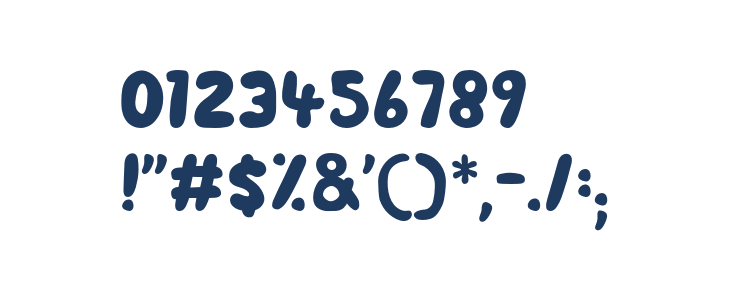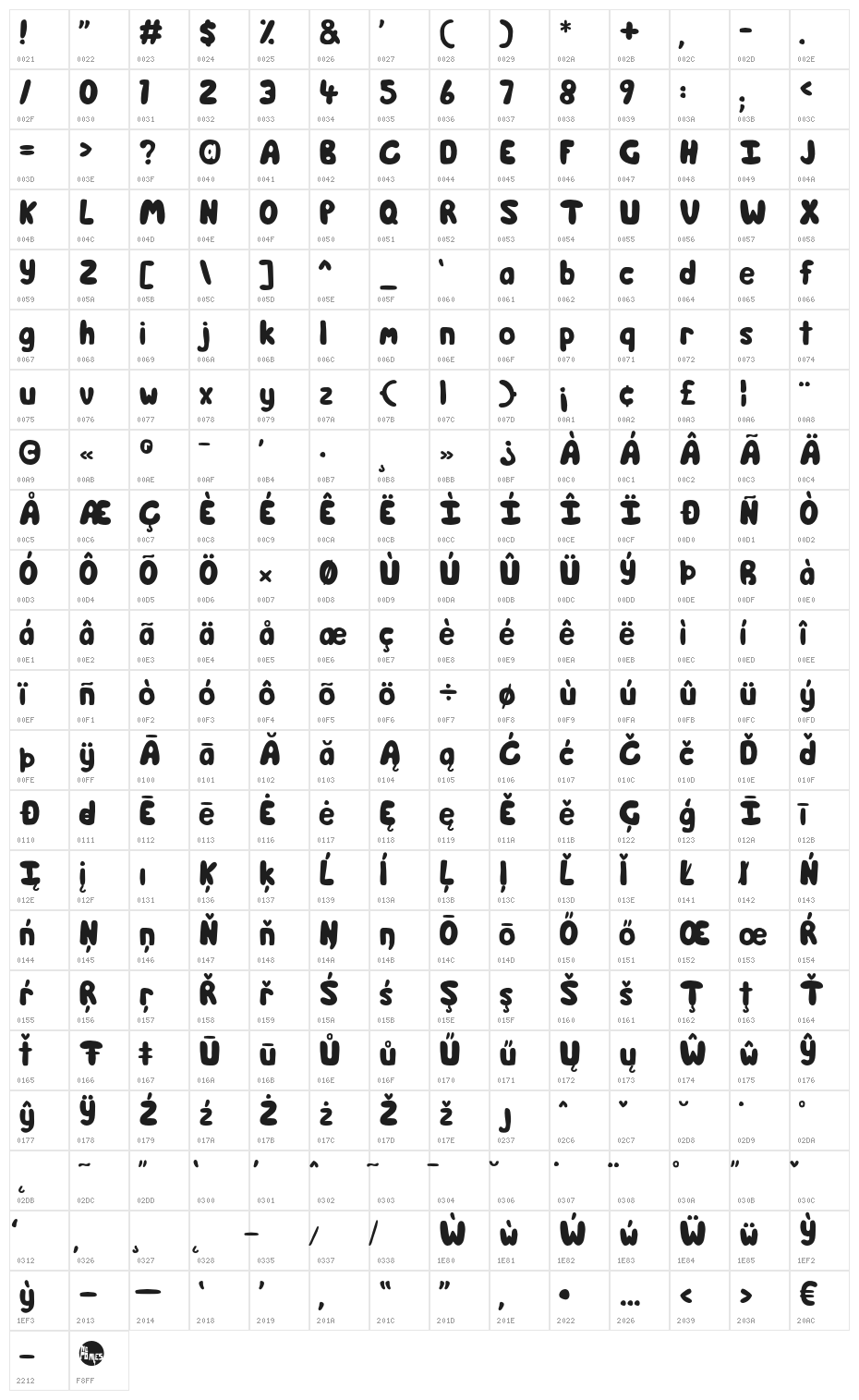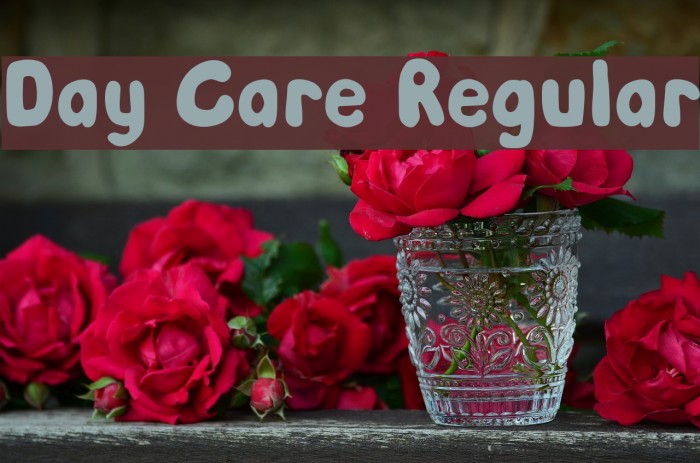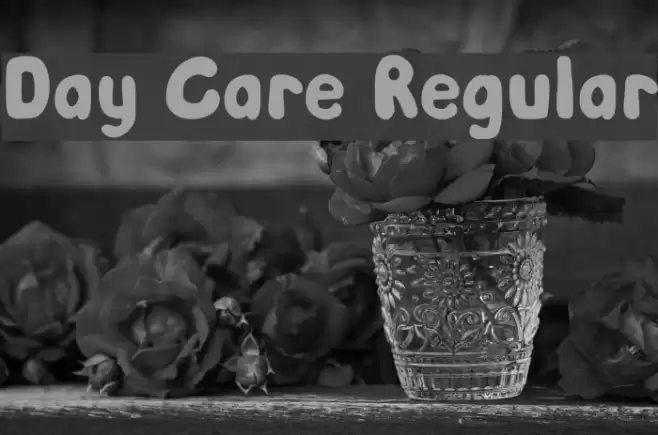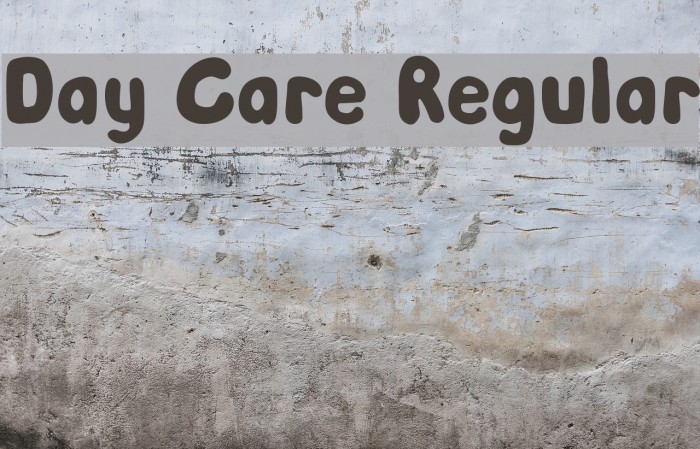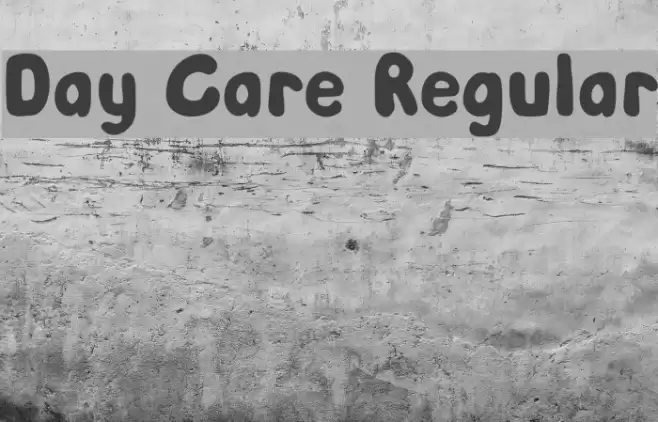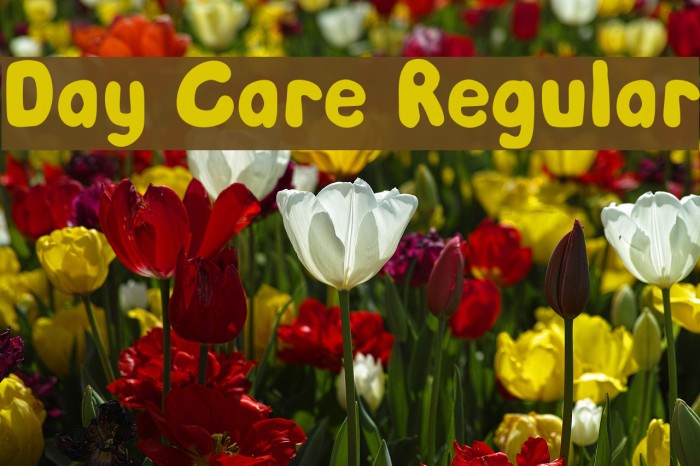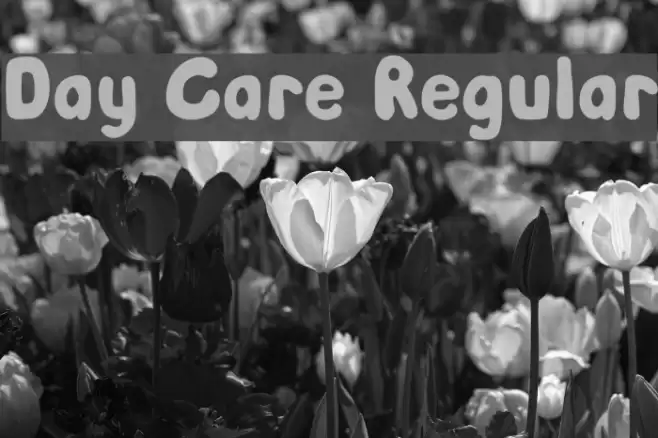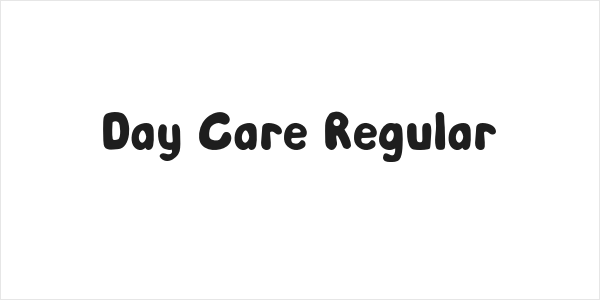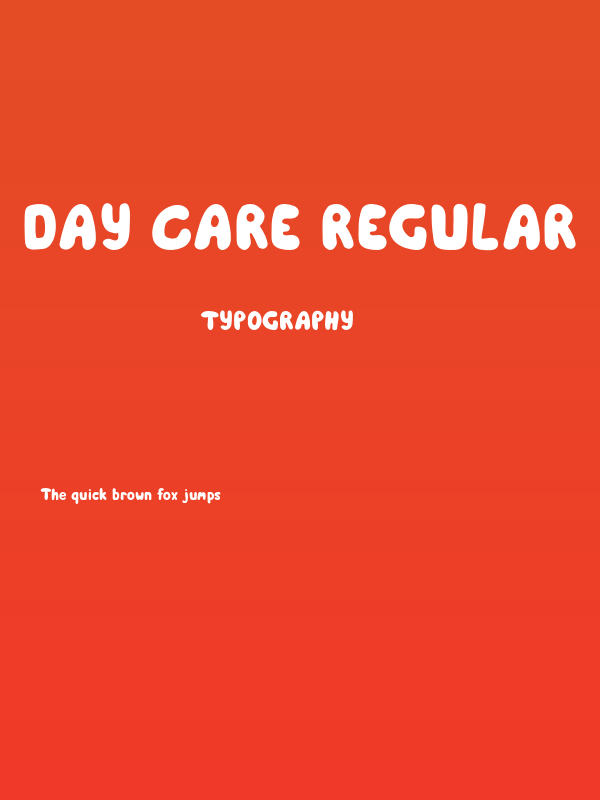
Day Care Regular Font
Day Care Regular Description
This playful and rounded font exudes a friendly and approachable vibe, making it ideal for projects aimed at children or casual settings. The characters are bold and have a soft, balloon-like appearance, which adds a sense of fun and whimsy. The font maintains a consistent stroke width throughout, contributing to its uniform and cohesive look. Its rounded edges and lack of sharp corners enhance its gentle and inviting feel. The spacing between characters is moderate, ensuring readability while maintaining its playful nature. This font is perfect for creating a warm and welcoming atmosphere in any design.
| Proposed Projects | Ideal for children's books, toy packaging, daycare branding, and playful posters. |